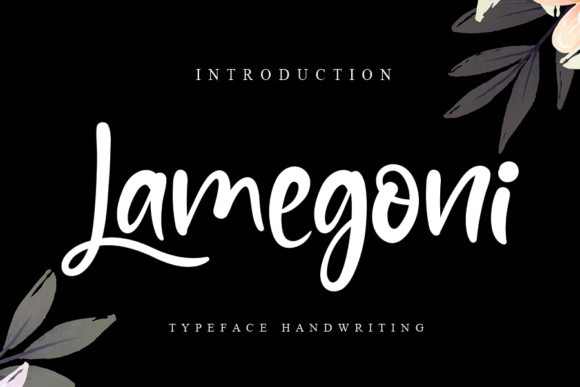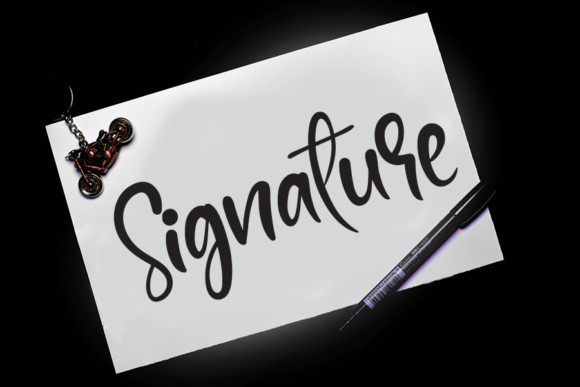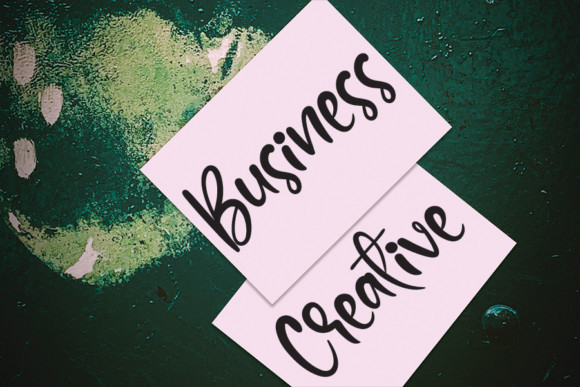
Lamegoni Font
Lamegoni is inspired by classic typography and brings its own unique style to any design project. Whether it’s for web, print, moving images or anything else – Lamegoni will look spectacular.